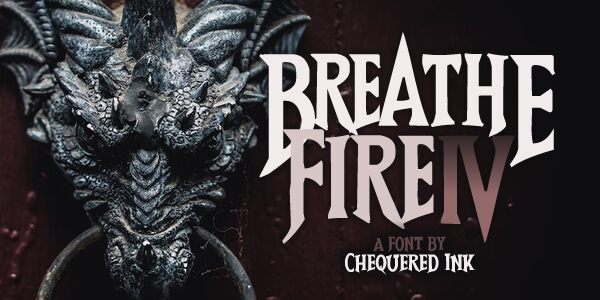
Breathe Fire IV
Looking for a gothic font that packs a modern punch? Meet Breathe Fire IV, designed by Allison J James. This bold and condensed typeface is perfect for projects that demand attention, from edgy album covers to dark and daring branding campaigns. With its sharp edges and sleek lines, Breathe Fire IV is ideal for adding a touch of rebelliousness to any text-based design project. Its modern twist on the traditional gothic style makes it suitable for everything from fashion magazines to horror movie posters. Ready to set your designs ablaze? Try Breathe Fire IV today.